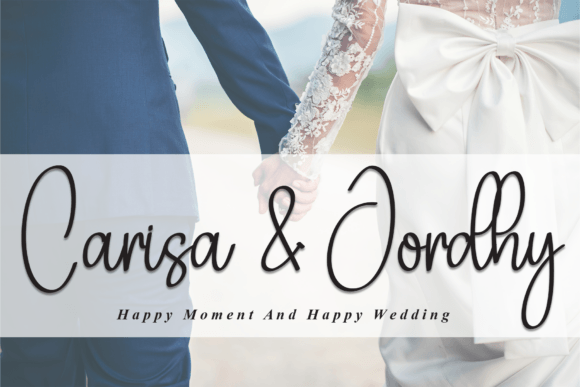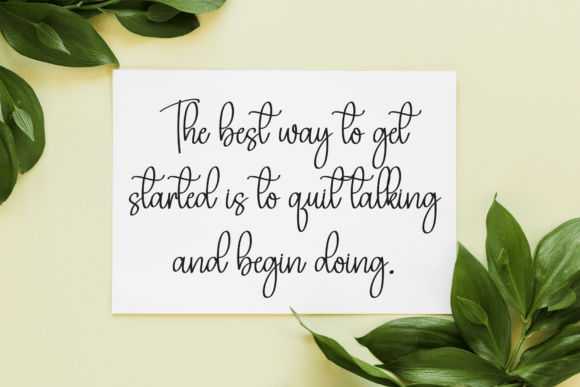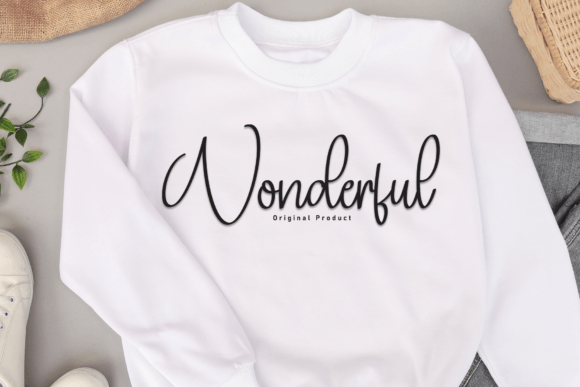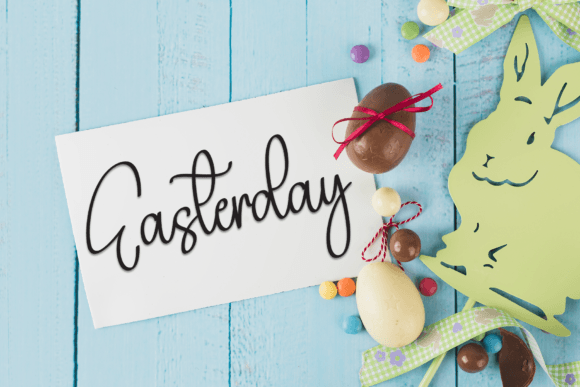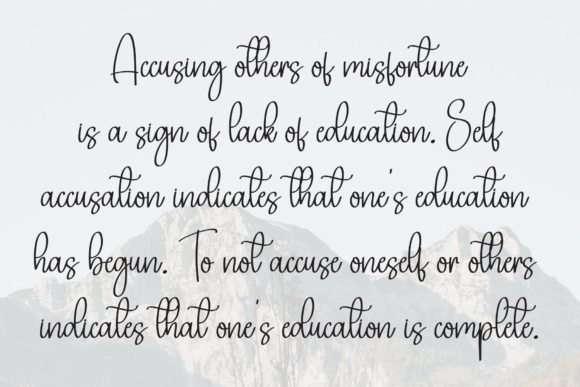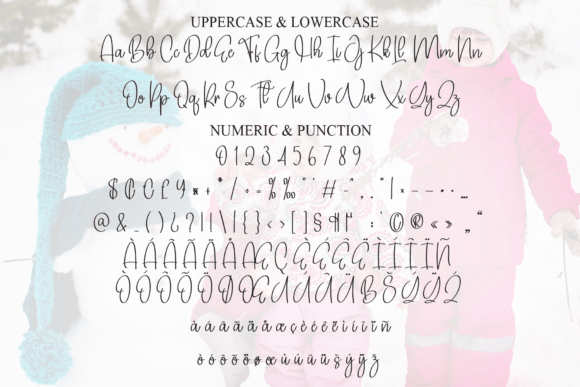
Unwrapping the Magic of the Season with Baby Snowman Font
As I sat at my desk, sipping hot cocoa and surrounded by twinkling lights, I knew it was time to bring some festive cheer to my designs. The holiday season is the perfect excuse to get creative and add a dash of whimsy to our projects. That’s when I stumbled upon the Baby Snowman Font – a delightful script font that immediately captured my heart.
This adorable font is more than just a pretty face; it’s a versatile tool for designers looking to add a playful touch to their work. With its soft, rounded letters and friendly style, Baby Snowman Font is perfect for holiday cards, children’s projects, and anything that needs a cheerful, snowy vibe. Whether you’re a seasoned designer or a creative enthusiast, this font is sure to bring a smile to your face and a touch of magic to your designs.
Baby Snowman Font Key Features
- Font Style: A cute and playful font, perfect for winter-themed designs and projects.
- Unique Characteristics: Features a unique, hand-drawn design with intricate details, giving it a one-of-a-kind feel that sets it apart from other fonts.
- Font Weight: Includes multiple font weights, ranging from Light to Bold, allowing for flexibility in design and layout.
Baby Snowman Font Review
Overall, I found the Baby Snowman Font to be a delightful and whimsical addition to any winter-themed project. The font has a playful and innocent quality to it, perfect for creating a sense of magic and wonder. ✨ The rounded edges and simple design make it easy to read and use in various contexts.
- Font styles: The Baby Snowman Font offers a range of styles, including regular, bold, italic, and bold italic, providing users with ample options for customization.
- Customizability: The font can be easily adjusted to suit different design needs, including size, color, and spacing.
- Unicode support: The font supports a wide range of languages, making it suitable for global audiences.
- ⚠️ Limited versatility: The Baby Snowman Font may not be suitable for more formal or professional projects due to its playful and childish nature.
- ⚠️ Limited character set: The font may not contain a comprehensive set of characters, potentially limiting its use in certain contexts.
In conclusion, the Baby Snowman Font is a charming and versatile choice for any winter-themed project or design that requires a touch of magic and whimsy. While it may have some limitations, its strengths far outweigh its weaknesses, making it a great addition to any designer’s toolkit.
The Baby Snowman Font is perfect for creating a whimsical and playful design. It’s commonly used in:
– Children’s party invitations and decorations
– Winter-themed graphics and illustrations
– Creative quotes and captions
– Branding and logo design for kids’ products and services
Getting the Most Out of the Font
To get the most out of the Baby Snowman Font, experiment with different font sizes, styles, and combinations. You can also pair it with other fonts to create a unique and eye-catching design.